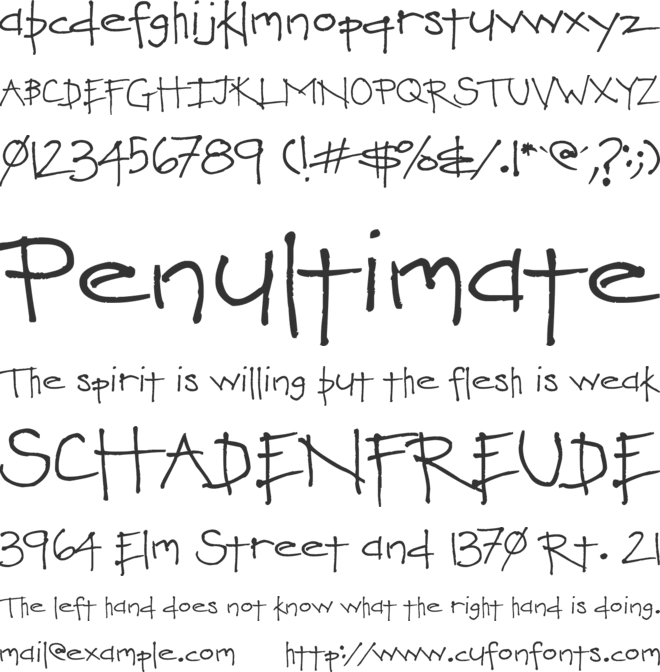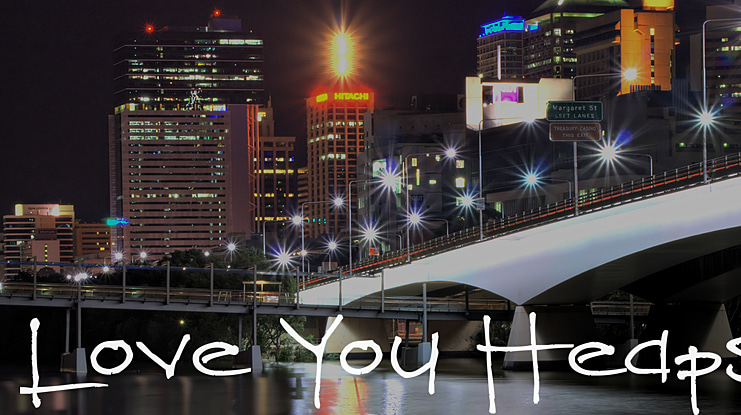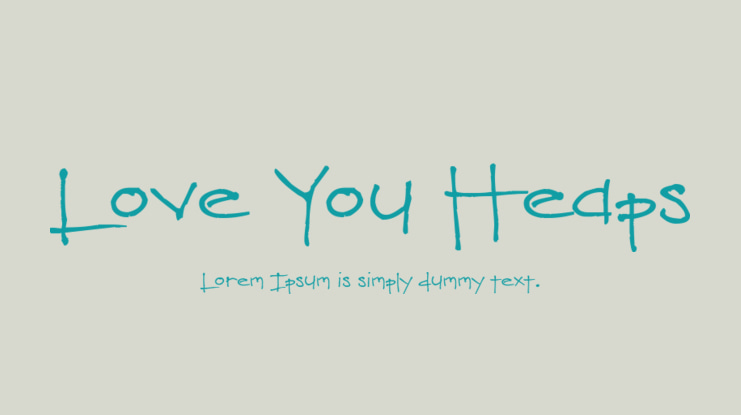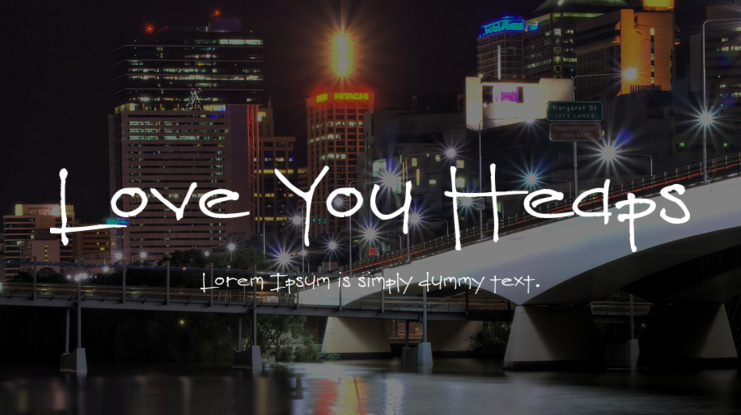
Love You Heaps Font
This font has beautiful long lines and really makes your text jump off the page or screen. Made at FontPanda.com. They will make your handwriting into a font for free! Enjoy!